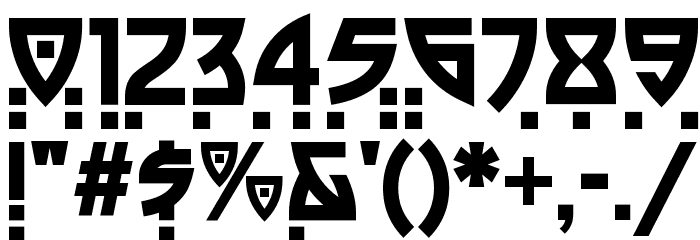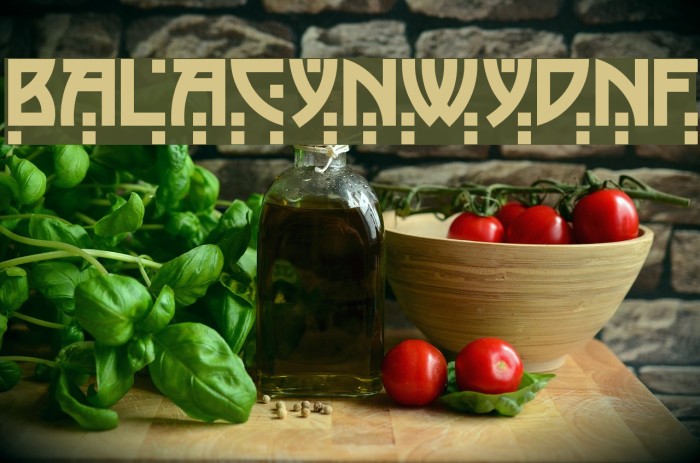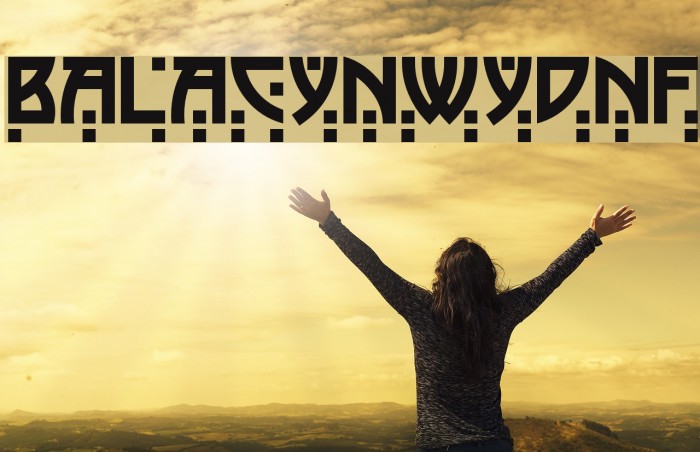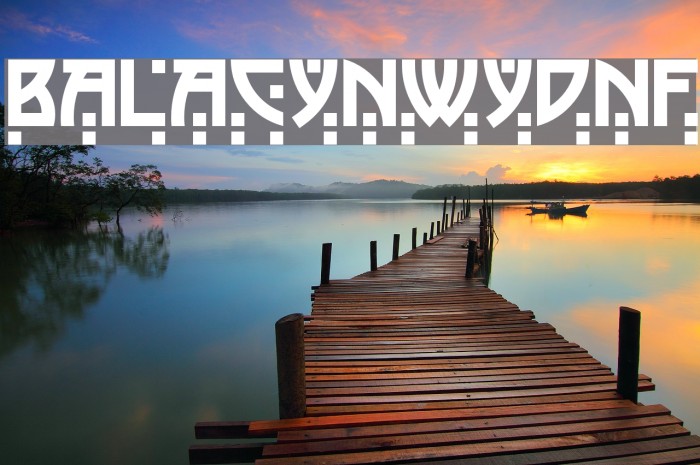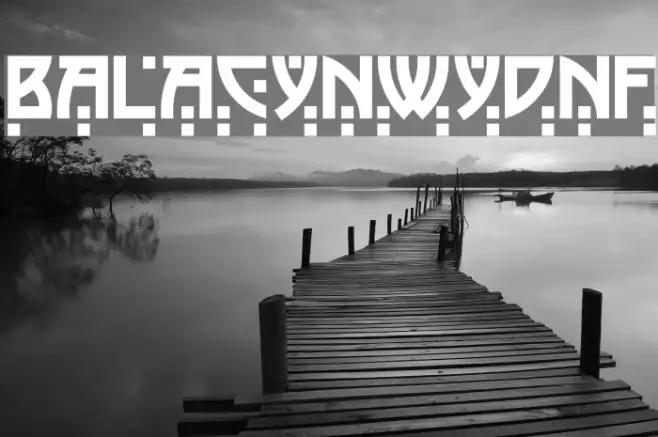
BalaCynwydNF Font
This font features a bold and geometric design with a distinct tribal or ancient script influence. Each character is crafted with sharp angles and unique embellishments, resembling a fusion of modern digital aesthetics and traditional motifs. The uppercase letters are particularly striking, with intricate patterns that suggest a sense of mystery and depth. The lowercase letters maintain the same stylistic elements, ensuring consistency throughout the typeface. Numbers and special characters are equally bold and decorative, making them stand out in any design. This font is ideal for projects that require a strong visual impact and a touch of exotic flair.
A bold, geometric font with tribal-inspired embellishments.